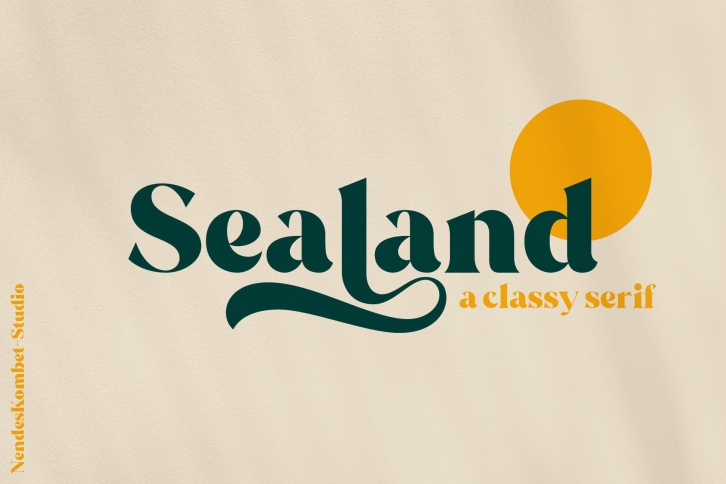
Sealand is a bold and classy serif font. This font reads as strong, confident, and dynamic and can add tons of nostalgic character to your designs.
Sealand is PUA encoded which means you can access all of the glyphs and swashes with ease!Â